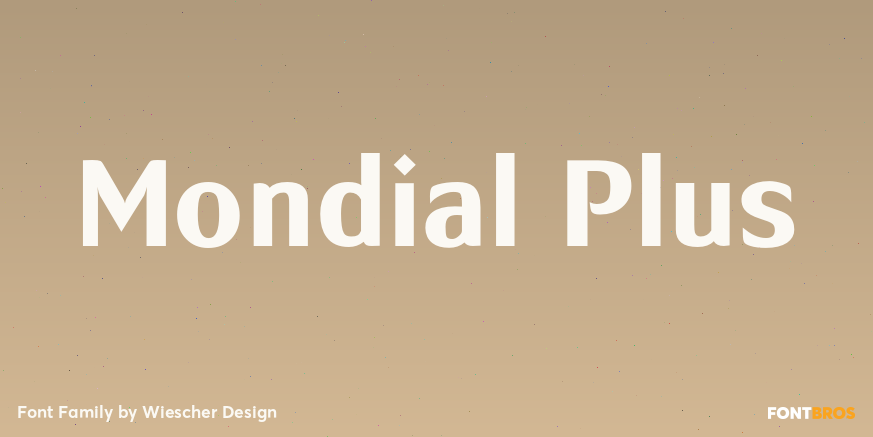
About Mondial Plus
MondialPlus is, as the name implies, a font meant for the whole world. MondialPlus is the newer and better version of Mondial. MondialPlus is designed to work in small sizes for bodytext. Only in bigger sizes does the font show its hidden character,…